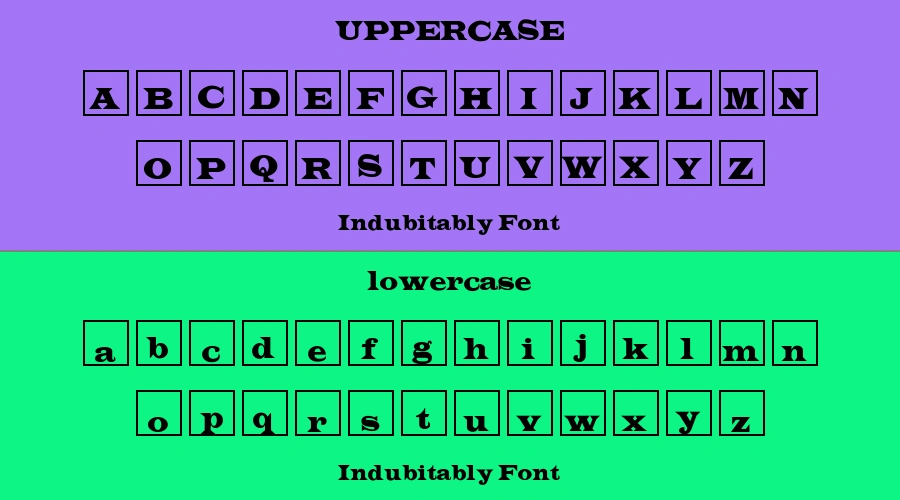
About Indubitably Font
Indubitably Font stands out for its distinctive combination of flared stems and technical excellence. Ideal for poster art, it provides the longevity and artistic value that professional projects demand. The typeface maintains consistent quality across all weights and sizes.
Key features include refined fluid motion and practical titling alternates, enhancing typographic expression. In identification tags applications, Indubitably Font demonstrates exceptional numerical alignment. The character width and artistic value contribute to its distinctive character and professional appeal.